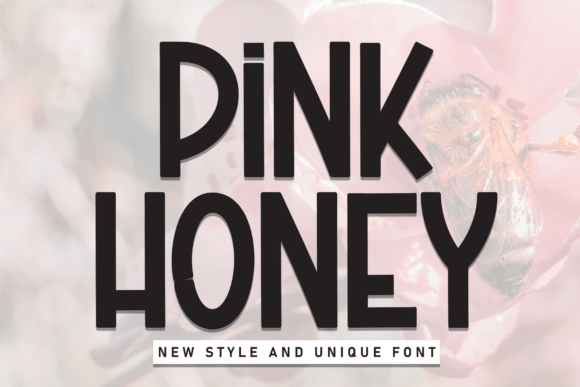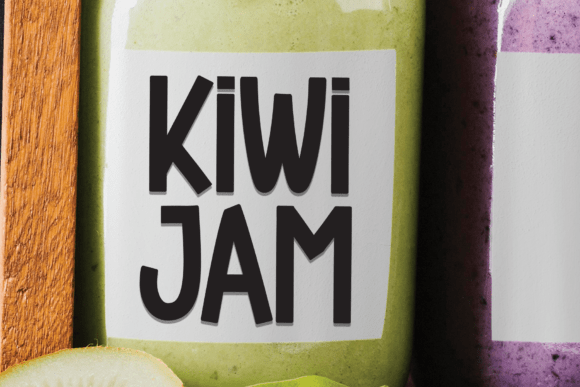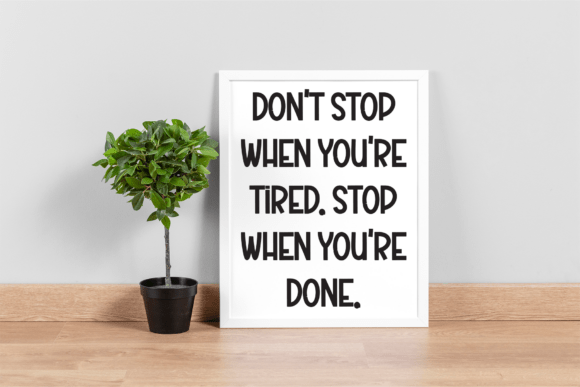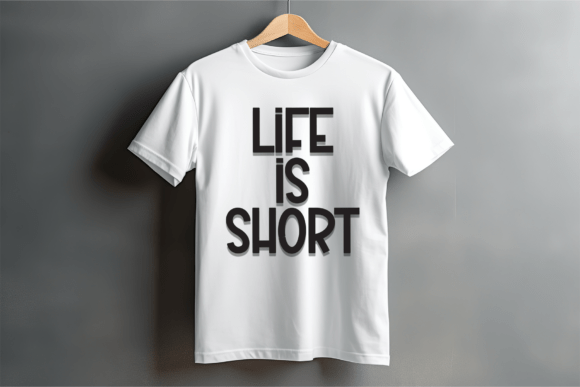
Pink Honey Font: A Cute & Modern Display Font for Playful Designs
About the Pink Honey Font
Elevate your designs with Pink Honey Font, a font that combines sophistication with readability. Pink Honey is a sleek and unique modern font with clean lines and a fresh handcrafted feel. Perfect for branding, product packaging, social media designs, or editorial headlines, this font blends simplicity with a touch of charm for eye-catching appeal.
Pink Honey’s modern, handcrafted aesthetic makes it ideal for branding projects requiring a touch of friendly sophistication, particularly logos, short taglines, and packaging design. It also excels in headlines and short-form content where its unique charm can shine. However, its distinctive character makes it less suitable for body text or lengthy paragraphs, where readability might suffer.
Consider pairing Pink Honey with a clean sans-serif like Open Sans for a balanced contrast, or a classic serif such as Garamond for a touch of refined elegance. For a more playful feel, a rounded geometric sans-serif would complement its handcrafted quality.
The overall personality of Pink Honey is best described as friendly yet sophisticated; modern but approachable. It is best suited for brands and projects that need to convey a sense of both quality and approachability, avoiding overly serious or formal applications.
Pink Honey Font Usage Examples
Pink Honey Font Example